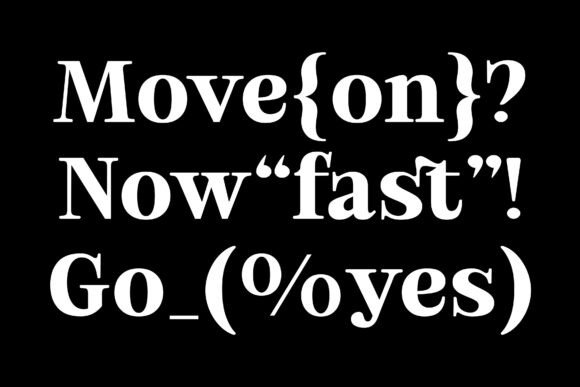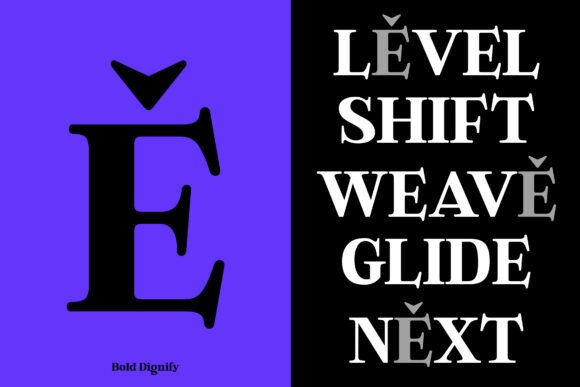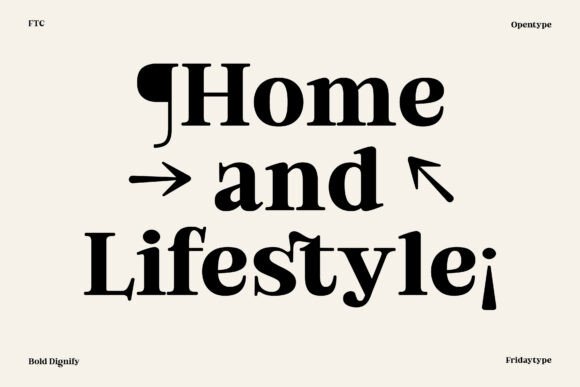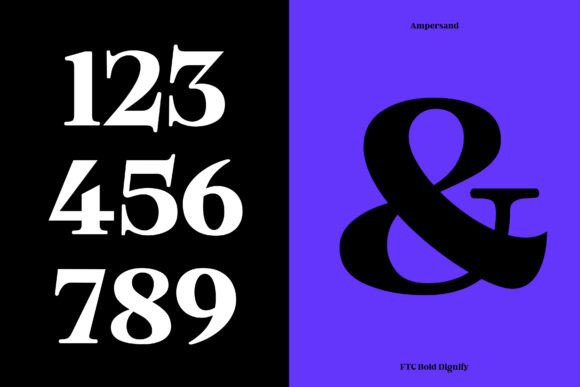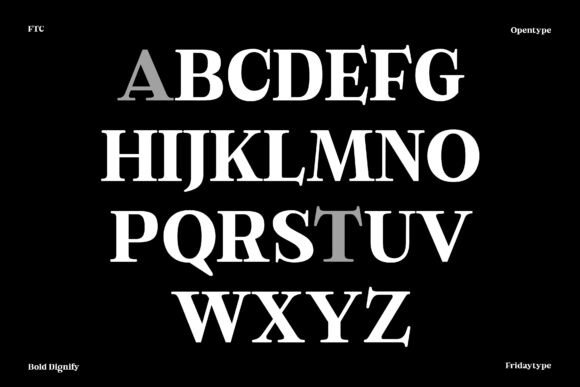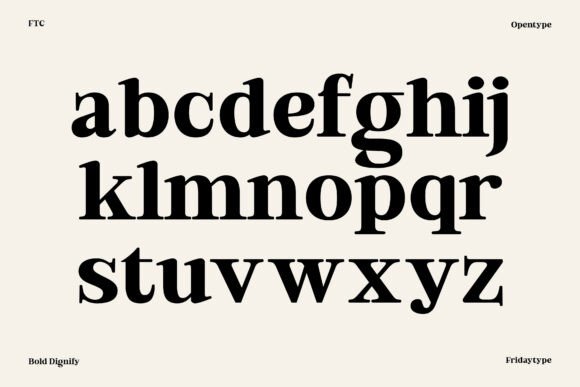
Introducing Bold Dignify Font: The Embodiment of Confident Elegance
In the realm of typography, a font can be more than just a means of communication; it can be a statement of style, a reflection of personality, and a tool that elevates the visual impact of any design project. Bold Dignify, a serif font, emerges as a powerful player in this field, perfectly blending boldness with elegance. Designed with a keen eye for detail and a deep understanding of the needs of modern designers, Bold Dignify is poised to become the go-to choice for those looking to make a lasting impression.
The Essence of Bold Dignify
At its core, Bold Dignify exudes a bold and confident personality, making it an ideal choice for impactful headlines. Its design is rooted in a clean and minimalistic approach, which not only gives it a calm and elegant appearance but also infuses it with a charismatic strength. This balance is crucial in today’s fast-paced digital landscape, where grabbing the viewer’s attention and conveying authority are paramount.
One of the standout features of Bold Dignify is its versatility. Its simple yet refined forms make it an excellent fit for a wide range of applications, from modern editorial layouts to branding projects and other design purposes that demand both clarity and presence. Whether you’re working on a magazine spread, a website header, or a company logo, Bold Dignify adapts seamlessly, ensuring your message is conveyed with precision and style.
Design Philosophy
The design philosophy behind Bold Dignify is centered around the concept of understated sophistication. In an era where bold and loud designs often take the forefront, Bold Dignify offers a refreshing alternative. It understands that sometimes, less is more; and through its restrained yet powerful appearance, it manages to command attention without ever appearing overbearing. This makes it particularly appealing to designers who are looking to convey authority and professionalism without sacrificing aesthetic appeal.
Applications of Bold Dignify
The applications of Bold Dignify are vast and varied. Here are a few scenarios where this font truly shines:
- Editorial Design: For magazine headlines, article titles, and editorial illustrations, Bold Dignify provides the perfect blend of readability and visual impact.
- Branding: It serves as an excellent choice for logos and brand names, offering a distinctive yet approachable feel that can help a brand stand out.
- Web Design: For website headers, banners, and call-to-action buttons, Bold Dignify’s clean lines and bold presence ensure that your message is seen and remembered.
- Packaging: On product packaging, it can add a touch of elegance and sophistication, enhancing the overall unboxing experience.
Why Choose Bold Dignify?
In choosing Bold Dignify, designers are opting for more than just a font; they’re embracing a design philosophy that values clarity, elegance, and impact. Here are a few reasons why it stands out:
- Unique Personality: It offers a unique blend of boldness and refinement, making it perfect for projects that require a distinctive touch.
- High Versatility: Its adaptability across various design projects and mediums makes it a valuable addition to any designer’s toolkit.
- Timeless Appeal: The classic serif design ensures that it remains relevant and stylish for years to come, avoiding the fleeting nature of trendy fonts.
Bold Dignify is more than just a serif font; it’s a statement of confidence, elegance, and sophistication. Its design caters to the needs of modern designers who are on the lookout for a font that can add both impact and refinement to their projects. With Bold Dignify, you’re not just choosing a font; you’re elevating your design to a new level of professionalism and aesthetic appeal. Whether you’re working on a high-profile branding campaign, a stylish editorial layout, or any project that demands attention and respect, Bold Dignify is the perfect companion for your creative journey.